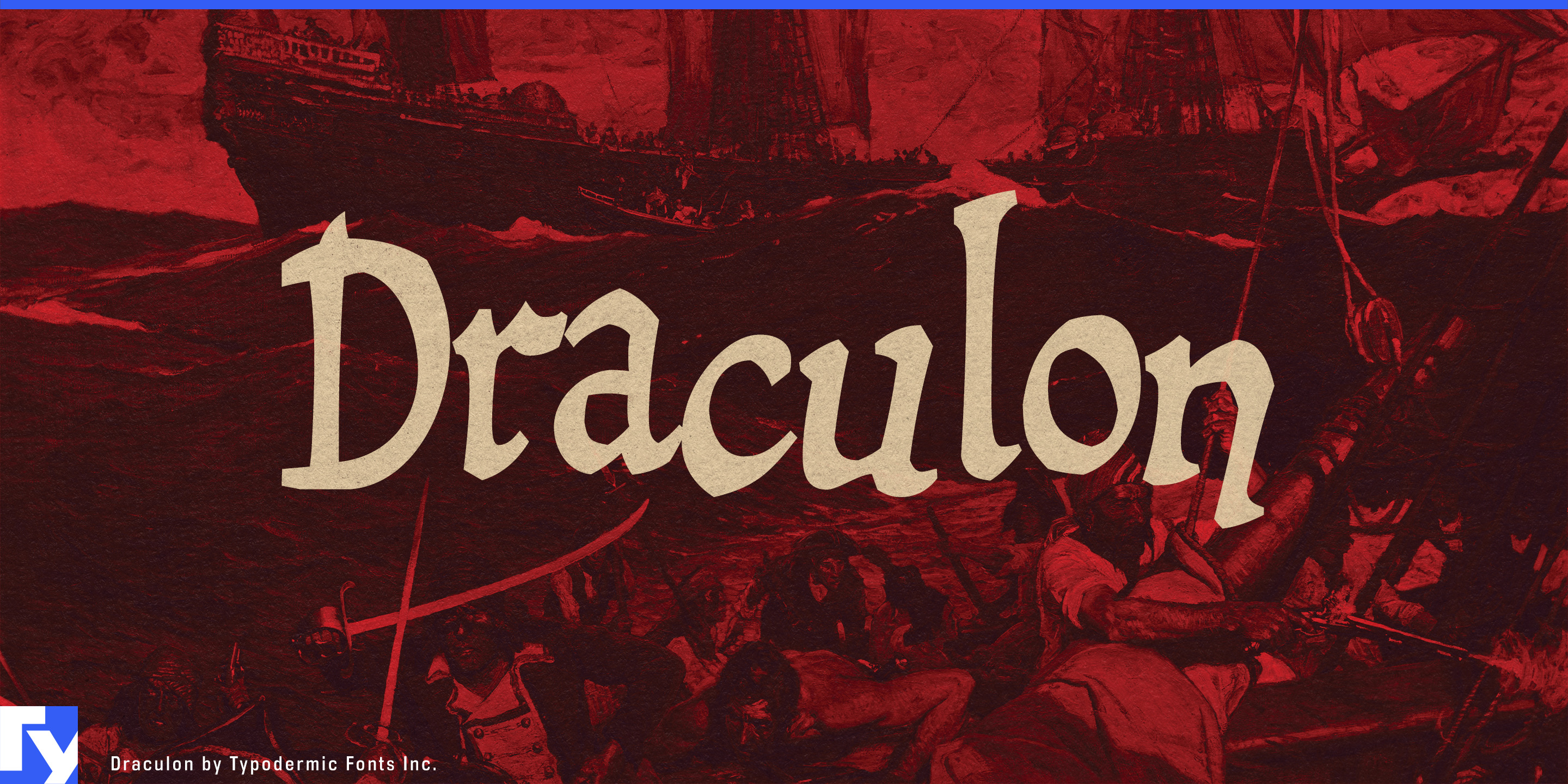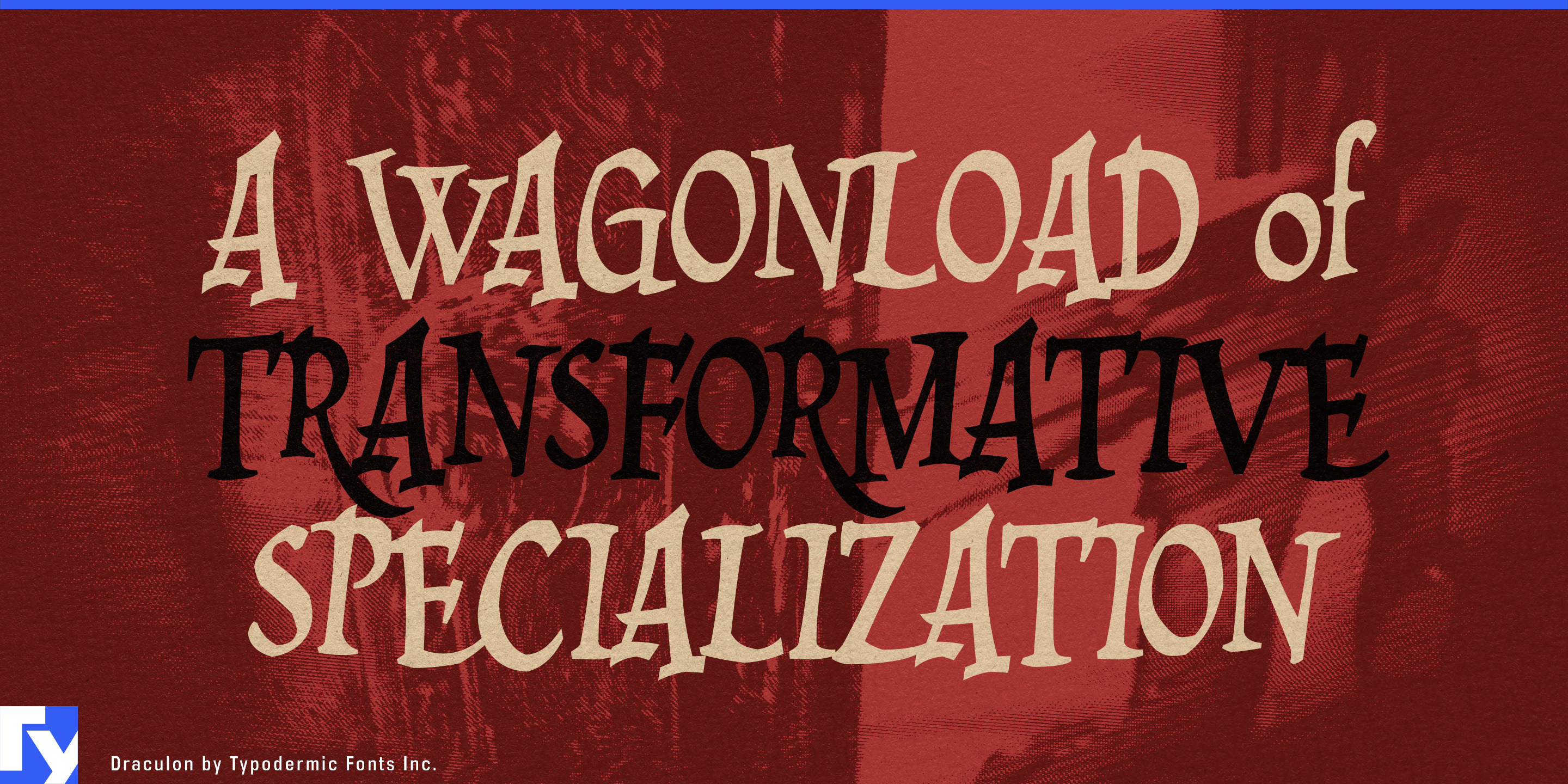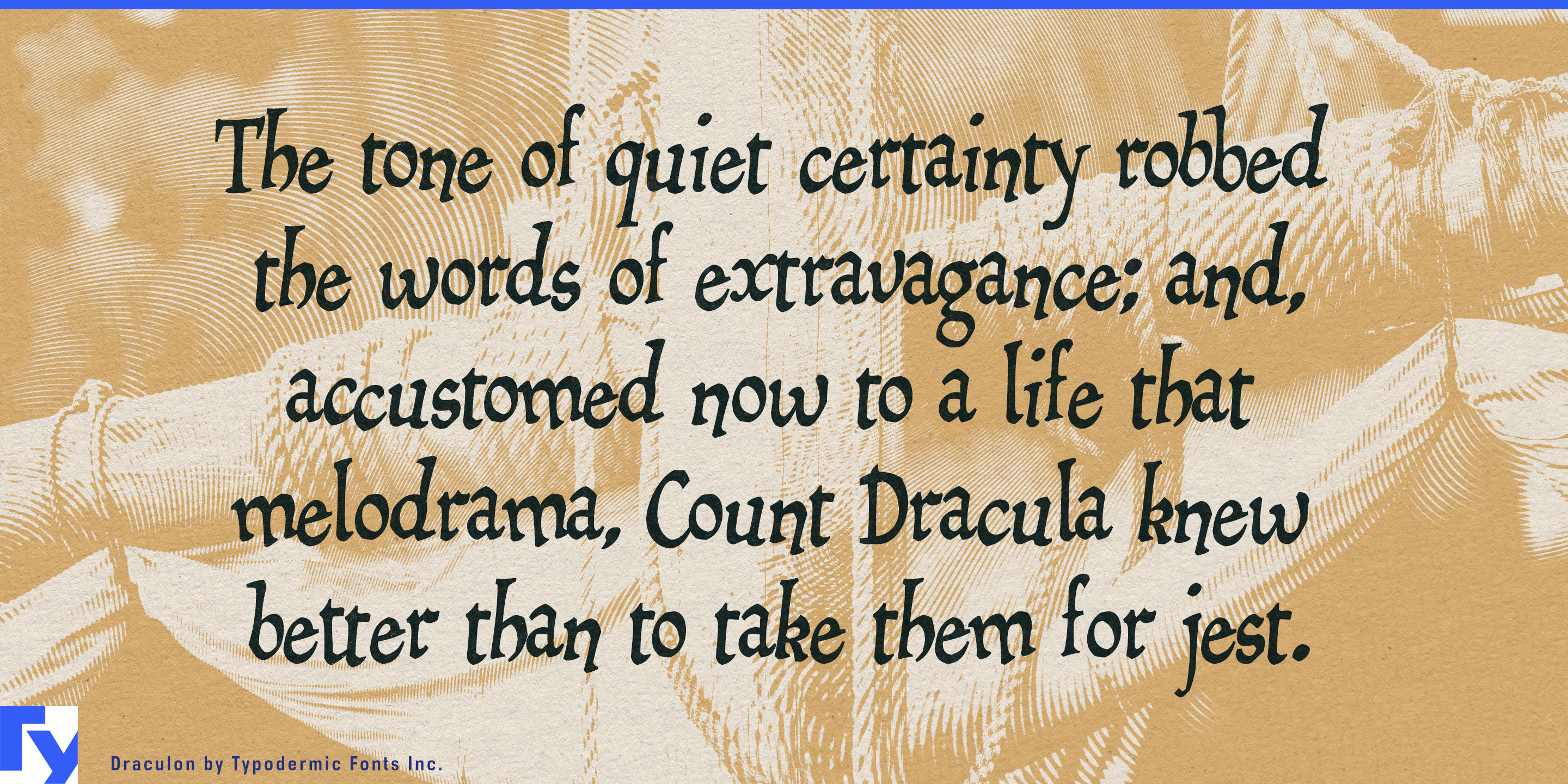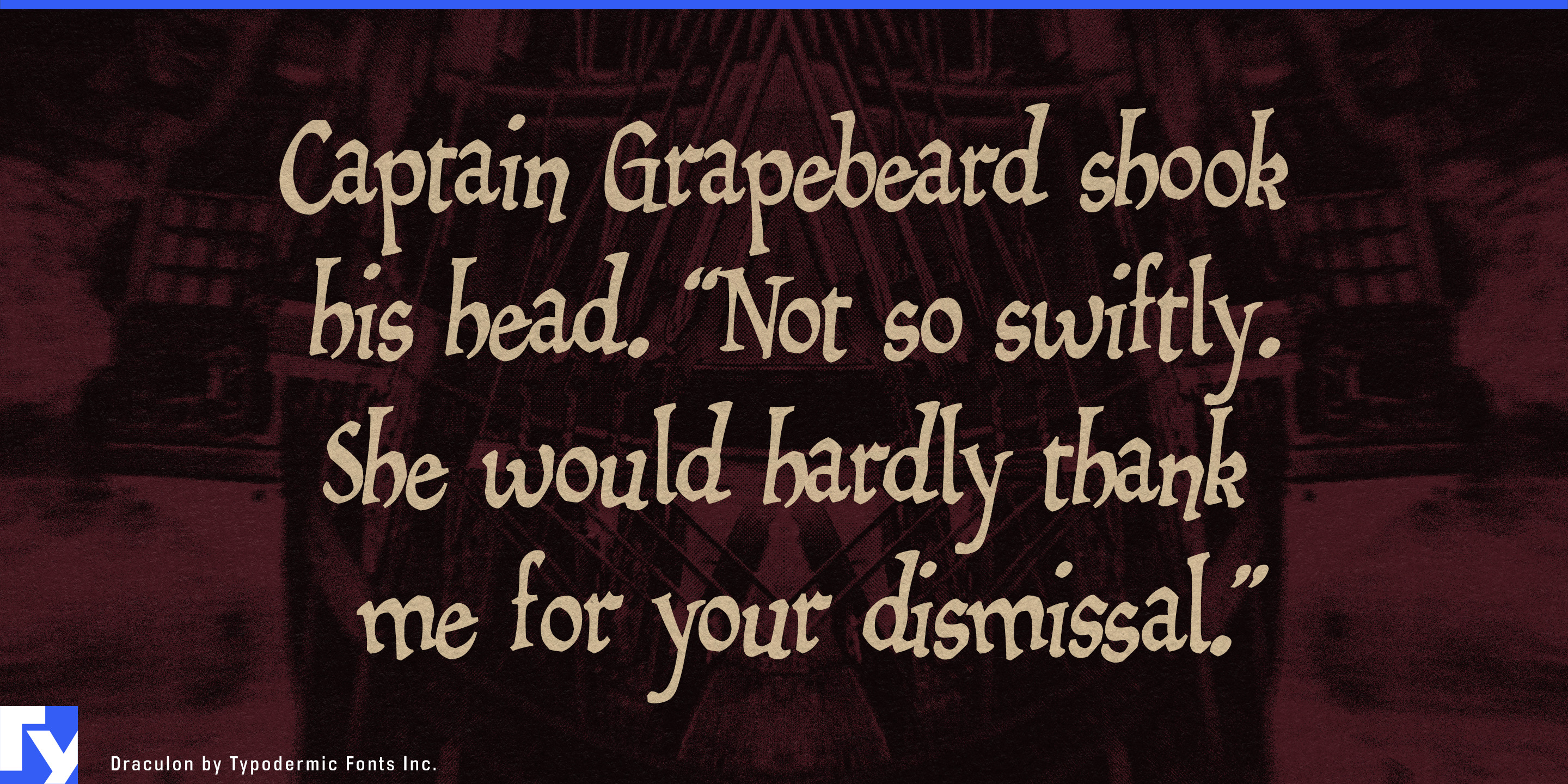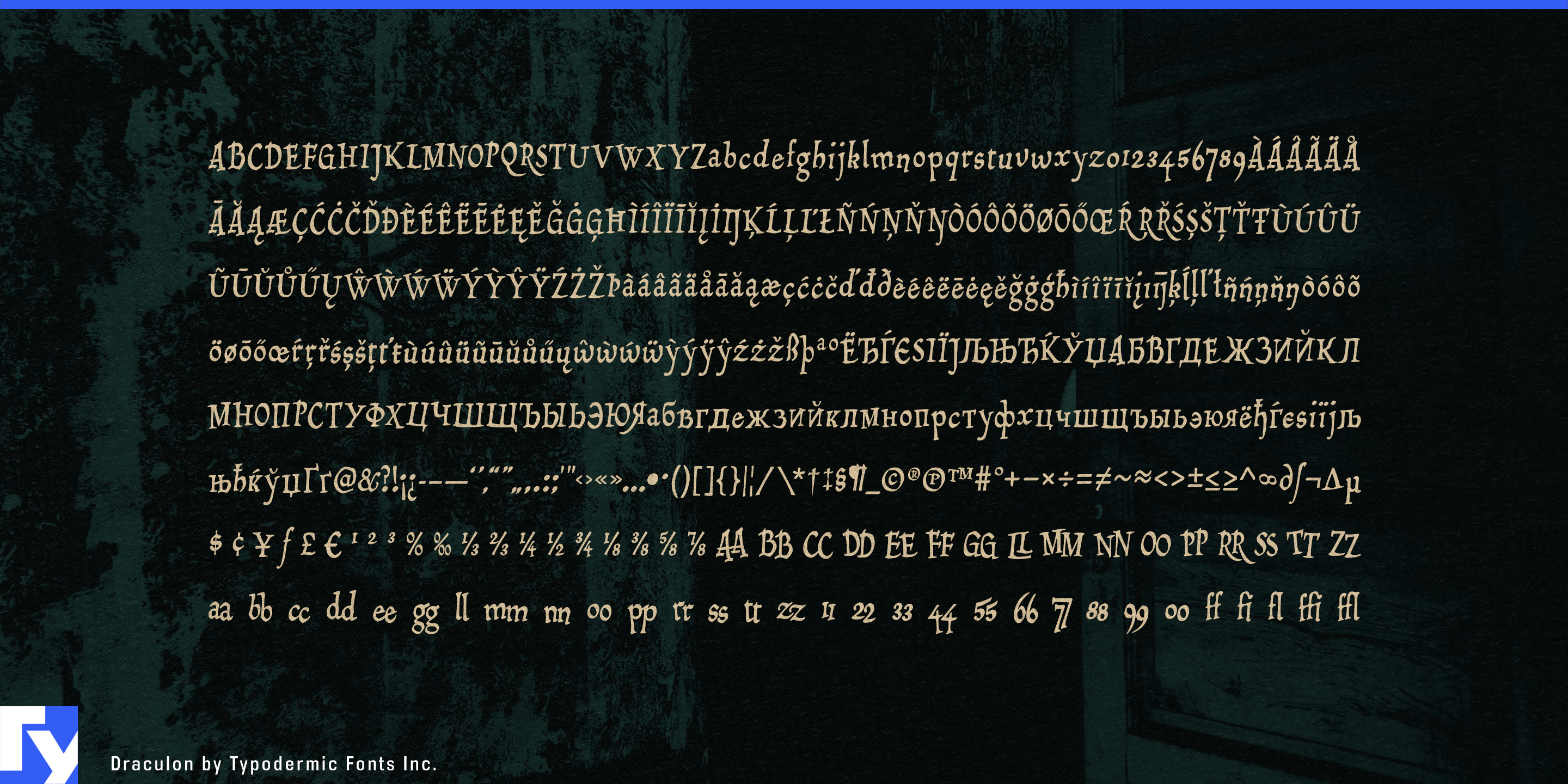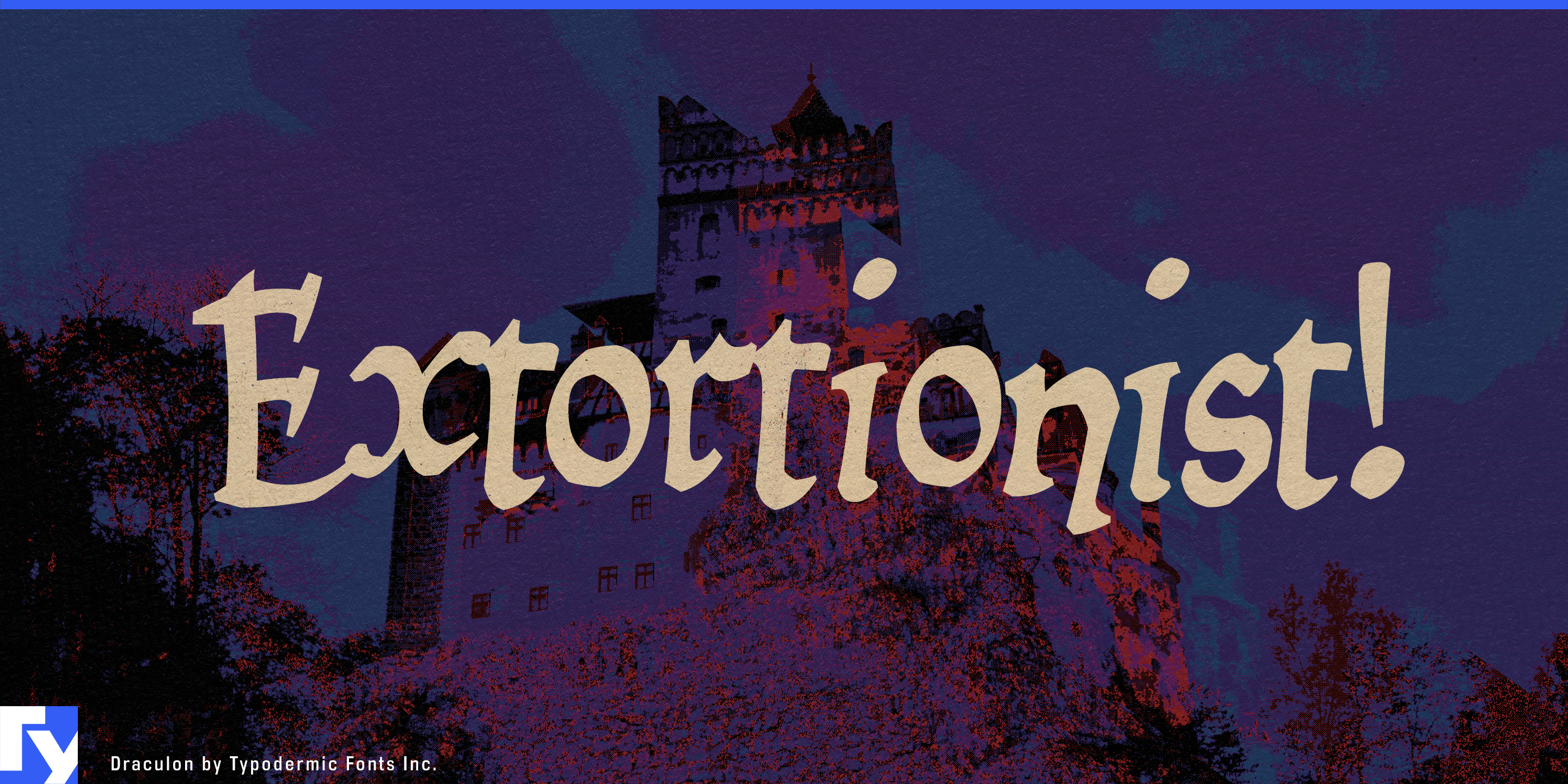
Draculon
Fantasy typography often lands in familiar territory: disciplined blackletter on one side, distressed horror lettering on the other. Draculon takes a stranger route. Its old-world structure is bent into lopsided polygons, jutting corners and rough-cut curves, creating historical fantasy lettering that feels theatrical, unstable and mischievously dangerous.
Draculon began with Mikadan, whose ancestry reaches back through William Dana Orcutt’s Humanistic to late-15th-century Italian manuscript forms. Those orderly foundations were deliberately distorted, traced into coarse polygons, bitmapped and retraced until the Renaissance flavor had become cartoonishly unruly. The result can suggest a vampire’s castle, pirate tavern or crooked medieval village without settling completely into any one of them.
That ambiguity makes Draculon especially useful for fantasy games and premium tabletop publishing. It can establish a game title, expansion name or faction identity, then continue into quest headings, achievement graphics, card names and short pieces of lore. Mixed case gives designers more room to build hierarchy than an all-caps fantasy display face.
Draculon also fits immersive entertainment: haunted attractions, dark rides, fantasy resorts, escape attractions and theatrical hospitality environments. Attraction names can share a visual language with room names, directional graphics, tickets, queue signs and short environmental messages.
Repeated characters receive alternate forms, preventing obvious duplication in double letters and repeated numerals. That helps names, signs, labels and short headlines retain the impression of lettering individually hacked into shape.
Beyond entertainment, Draculon suits supernatural publishing, collector’s-edition fantasy books, graphic-novel chapter titles and story-driven beverage packaging. Dark rum, spiced spirits, mead, bitters and herbal liqueurs can use its rough historical flavor without falling into conventional pirate lettering.
Draculon works best when a project needs history with the corners knocked loose: recognizably old-world, easy to push toward darkness or adventure, and eccentric enough to keep fantasy from becoming formal.